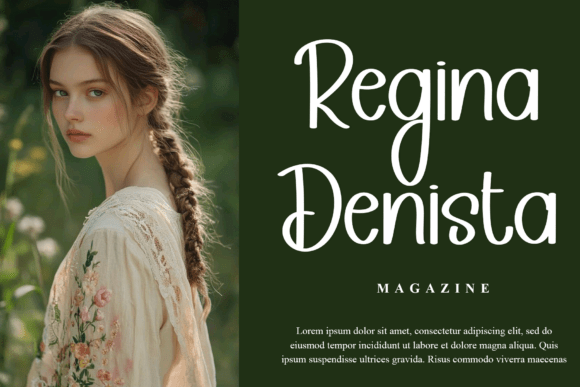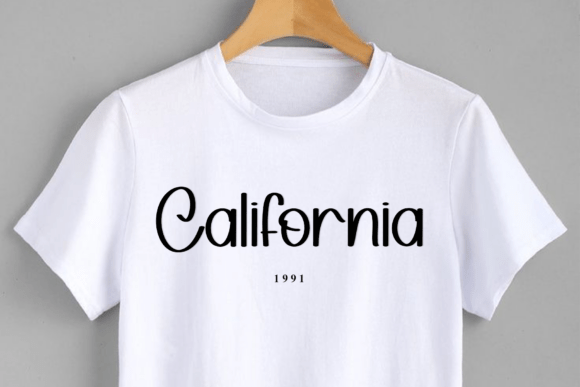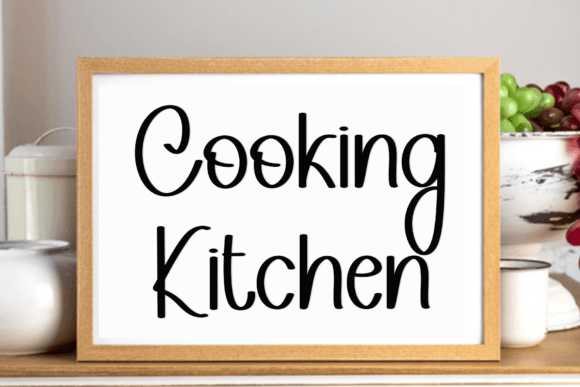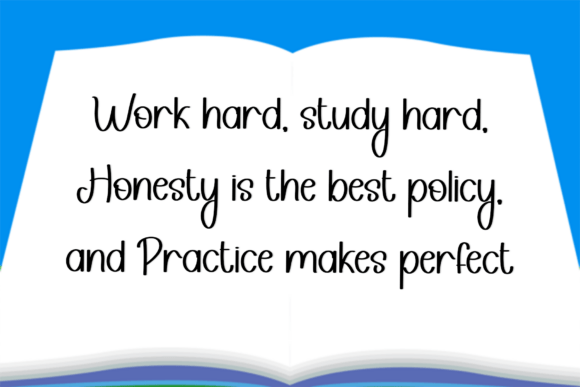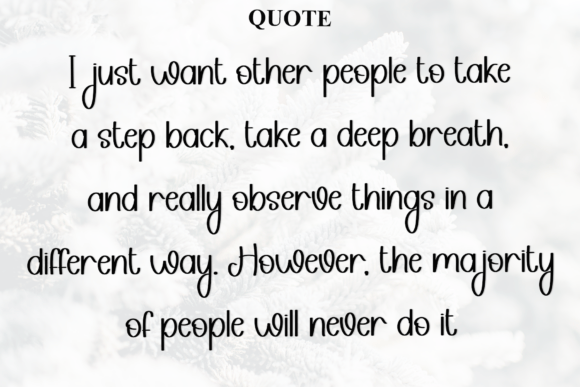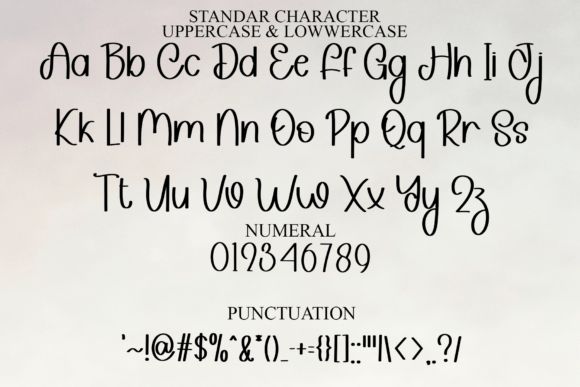
Soaking Up the Sunshine: Introducing Beach Sunshine Font
As I sit here on a sunny beach, surrounded by the soothing sounds of the waves, I’m reminded of the importance of a great font in capturing the essence of a moment. And that’s exactly what Beach Sunshine Font does – it brings warmth and friendliness to any design project. This casual and creative font is perfect for personal projects, invitations, and social media graphics that need a relaxed and approachable feel.
- Unique Characteristics: The Beach Sunshine Font is designed to evoke a sense of warmth and relaxation, with a distinctive blend of rounded and geometric shapes, creating a unique and eye-catching visual effect.
Designer Review: Beach Sunshine Font
Overall, I think the Beach Sunshine Font is a fun and playful addition to any design project. Here are a few things that really stand out: ✨
- Unique style: The Beach Sunshine Font has a distinct, hand-drawn feel that sets it apart from more generic sans-serif fonts.
- Casual vibe: The font is perfect for projects that need to convey a relaxed, summery feel – think beachy websites, outdoor gear brands, or tropical travel destinations.
- Customizable: The font comes in a range of weights and styles, making it easy to adapt to different design needs.
- Readability: While the font is great for headings and short blocks of text, it can be challenging to read in large blocks of body copy.
- Limited versatility: The Beach Sunshine Font is best suited for casual, creative projects – it may not be the best choice for more formal or professional designs.
Overall, I think the Beach Sunshine Font is a great addition to any designer’s toolkit, but it’s essential to use it thoughtfully and in the right context. When used correctly, it can add a touch of fun and personality to any design project.
Beach Sunshine Font is perfect for designs that require a playful, laid-back feel. Common use cases include:
- Summer-themed designs (e.g. beach party invitations, summer sale promotions)
- Children’s products and packaging (e.g. toys, candies)
- Food and beverage branding (e.g. ice cream shops, smoothie bars)
Alternatives to Beach Sunshine Font
Pacifico is a beautiful, cursive font perfect for creating a laid-back, beachy vibe. It’s ideal for use in branding, packaging, and editorial design. Compared to Beach Sunshine Font, Pacifico is more elegant and sophisticated, with a more refined feel.
Great Vibes is a modern, script font that’s perfect for adding a touch of sophistication to your designs. It’s ideal for use in branding, advertising, and web design. Compared to Beach Sunshine Font, Great Vibes is more contemporary and edgy, with a more dramatic flair.